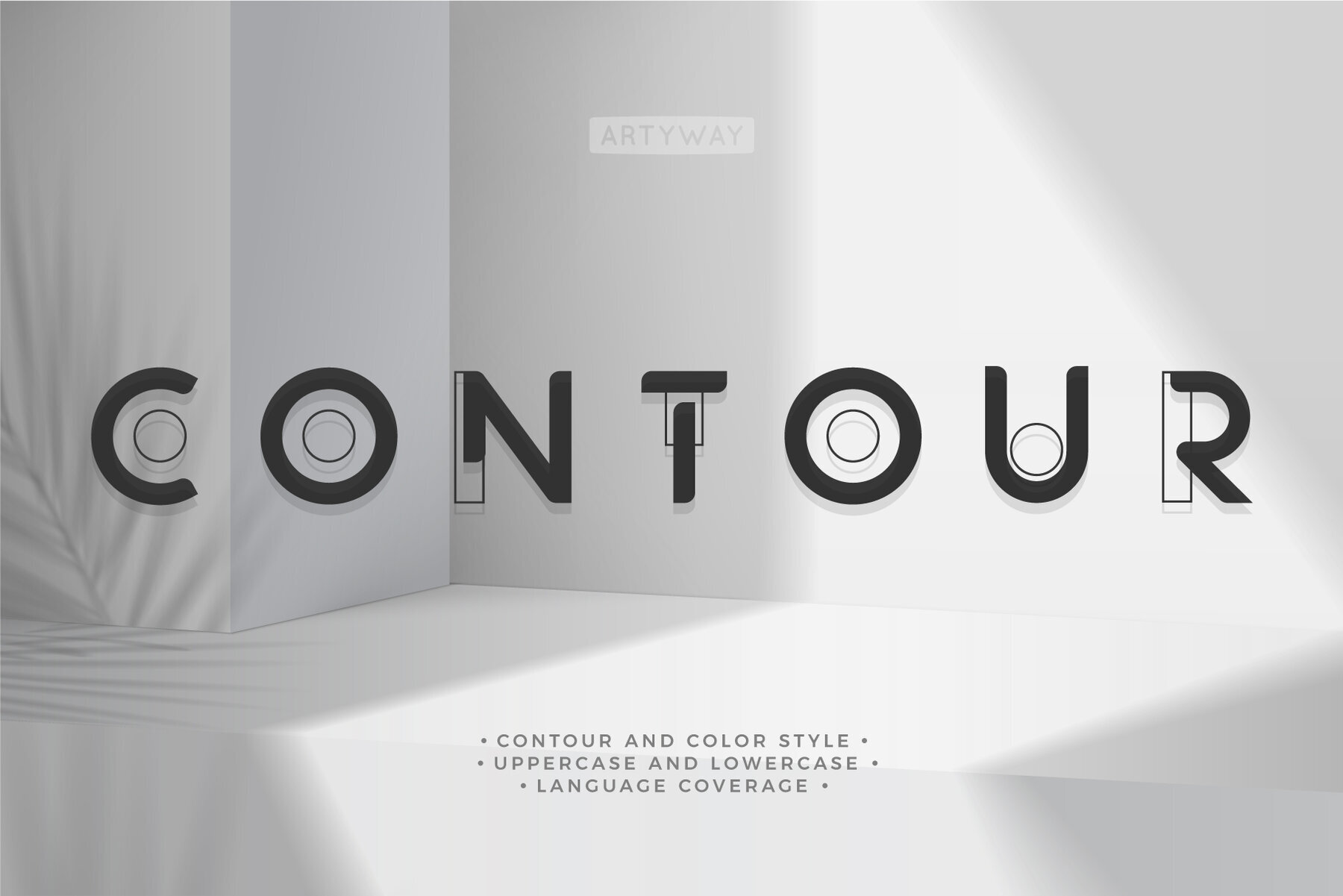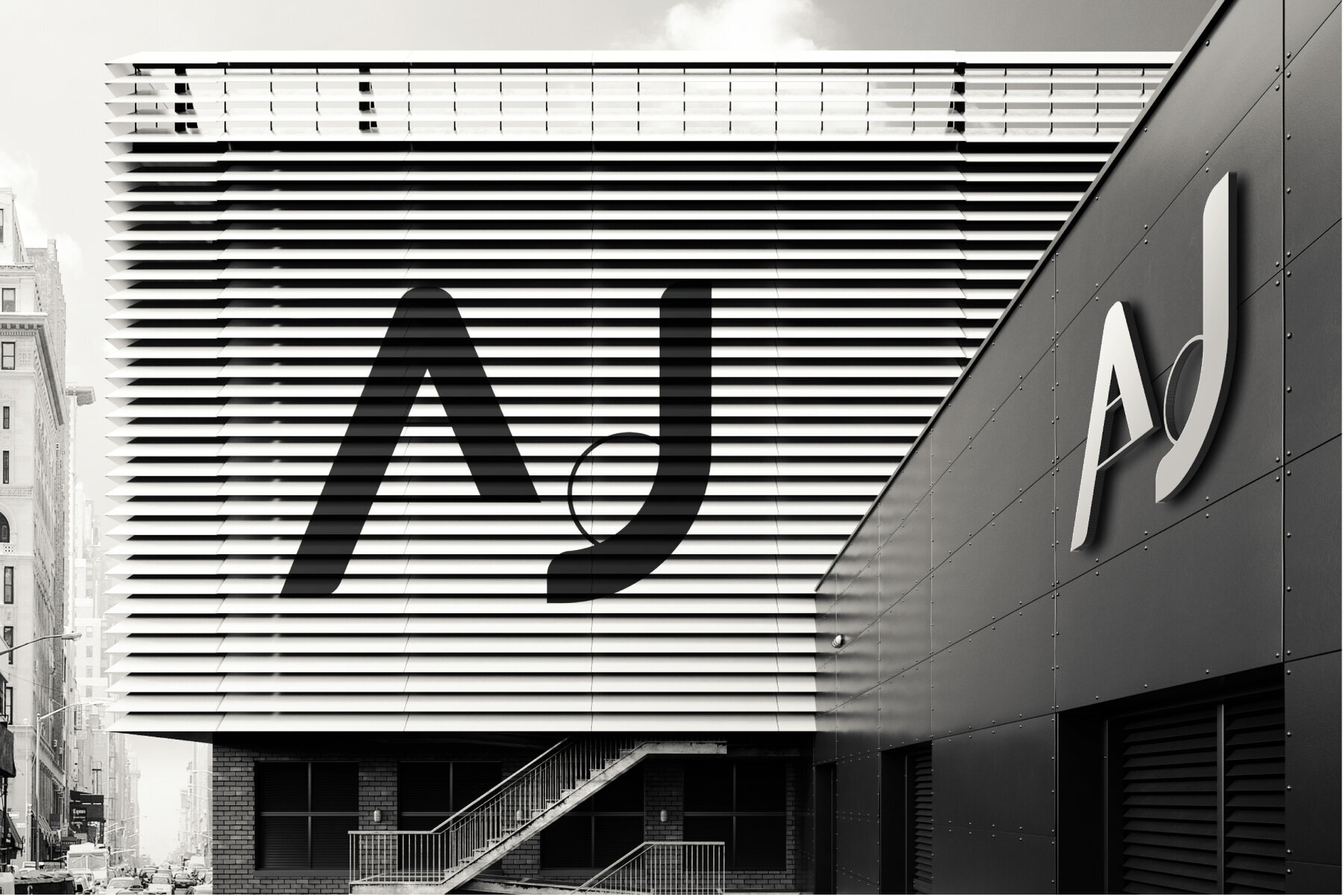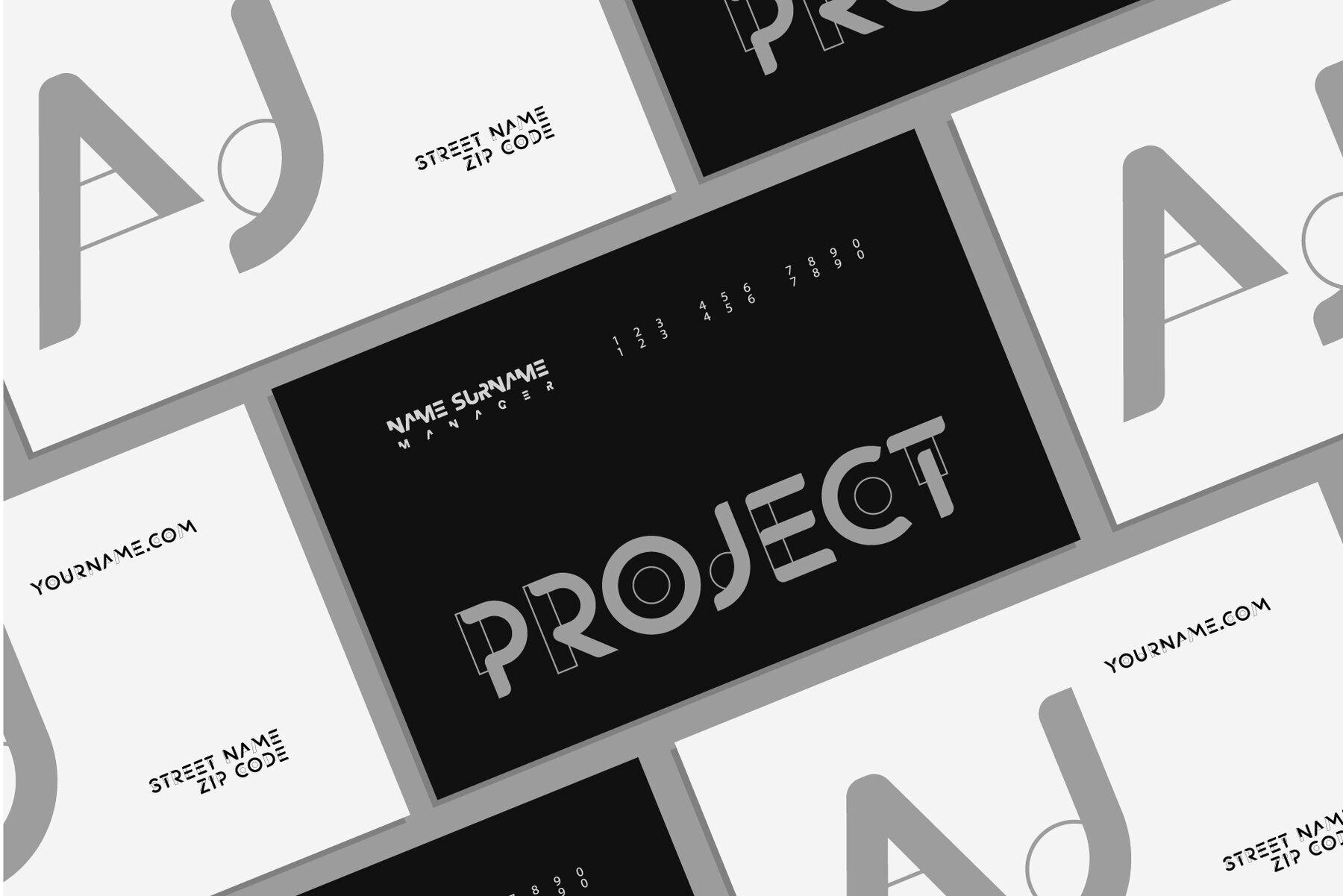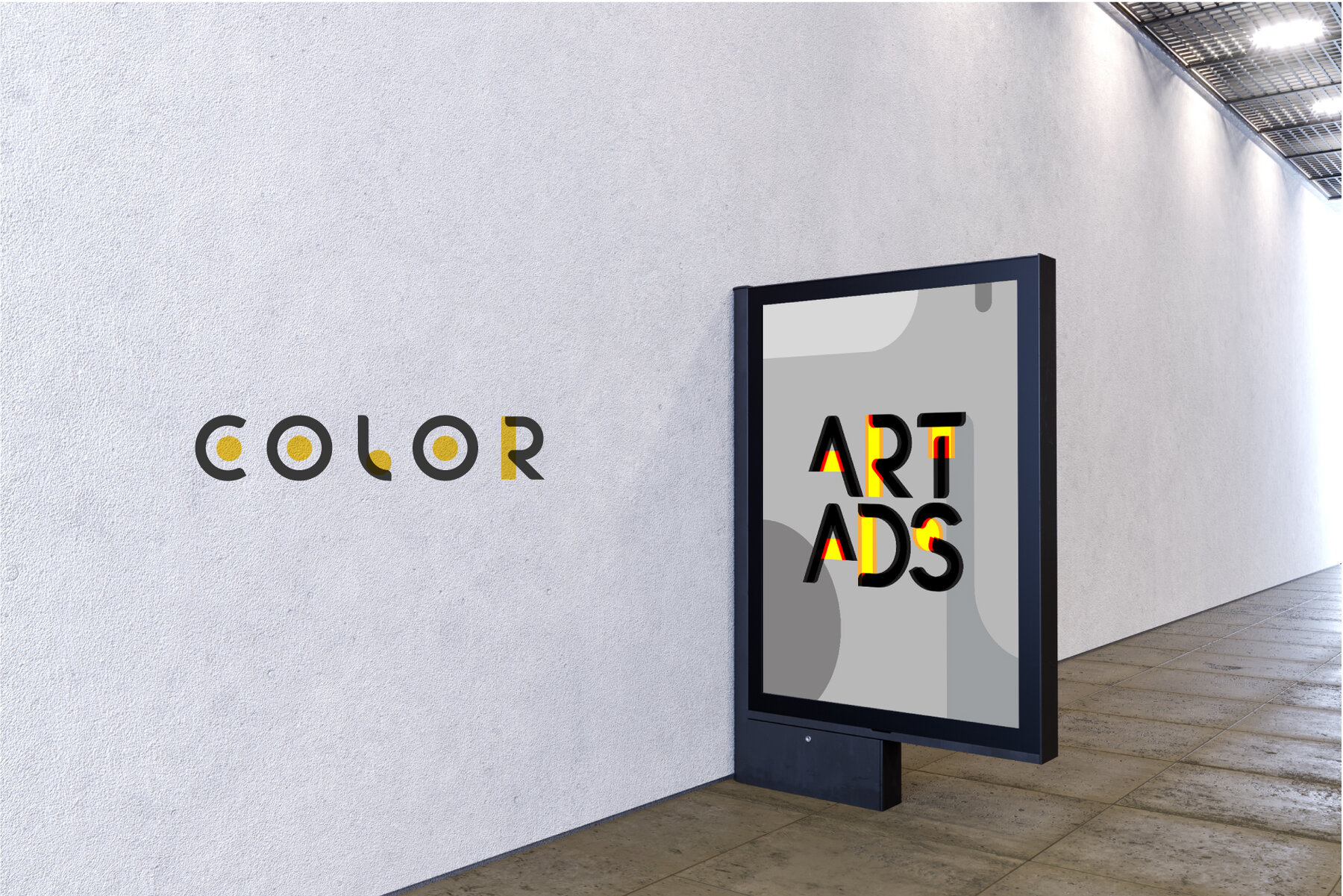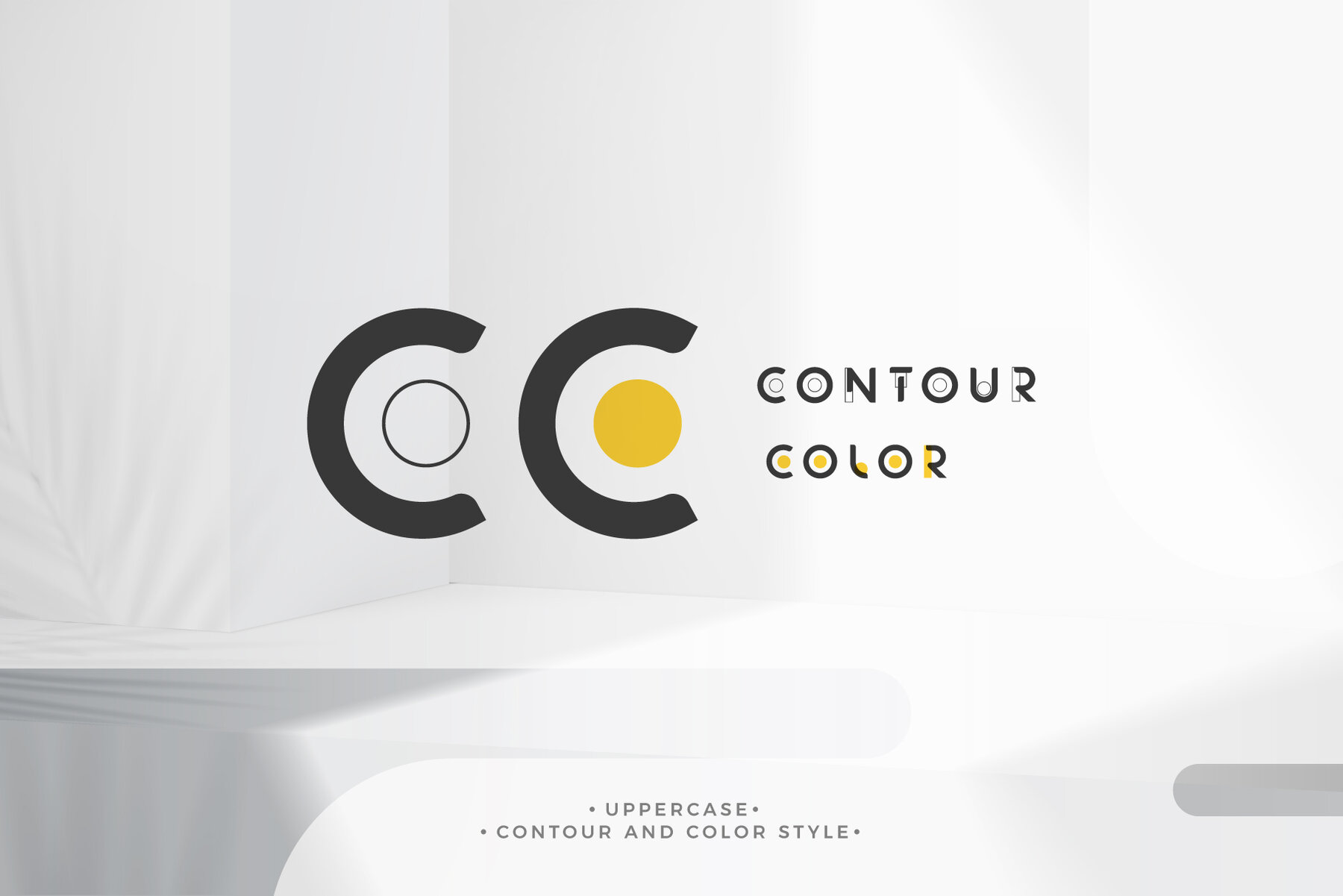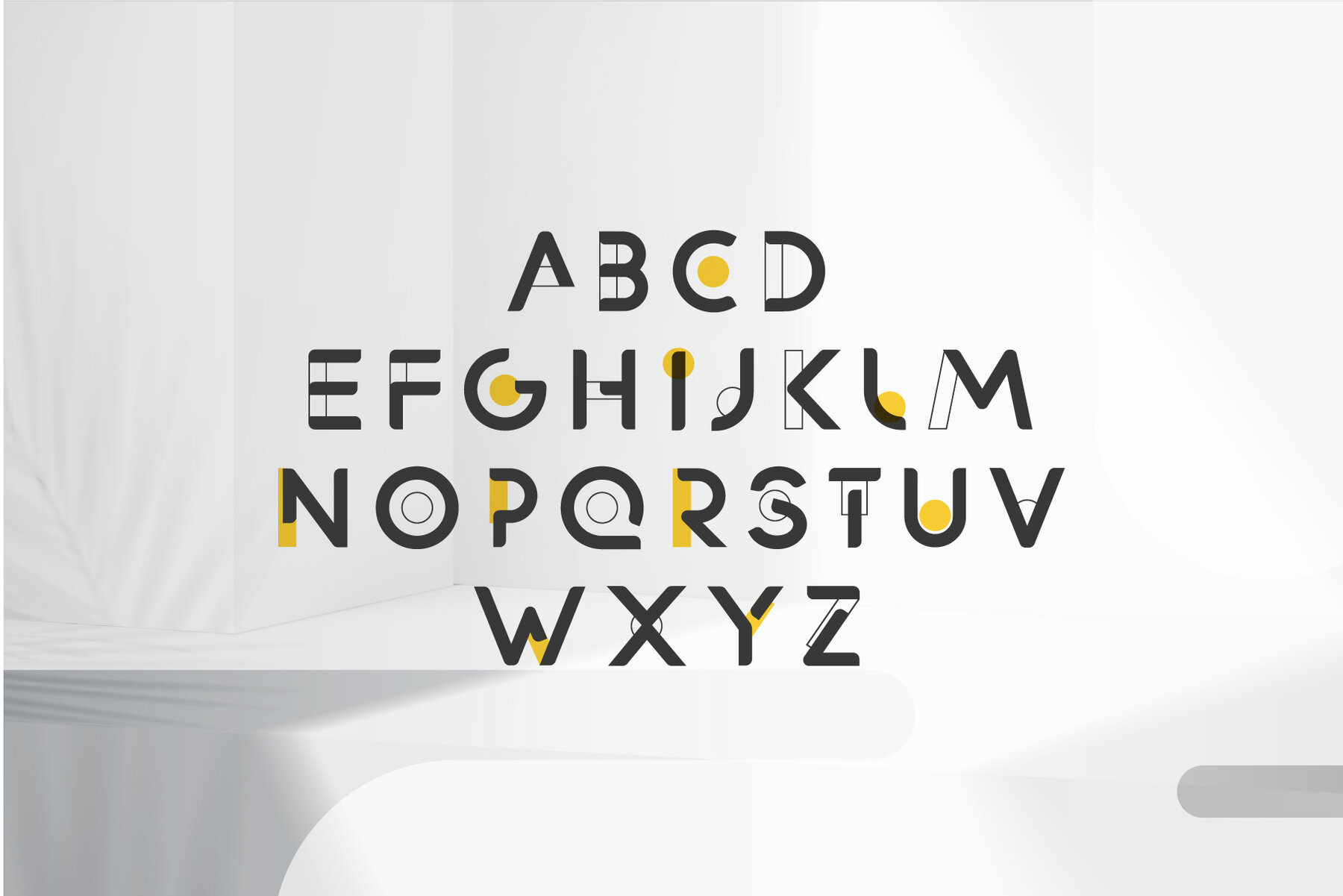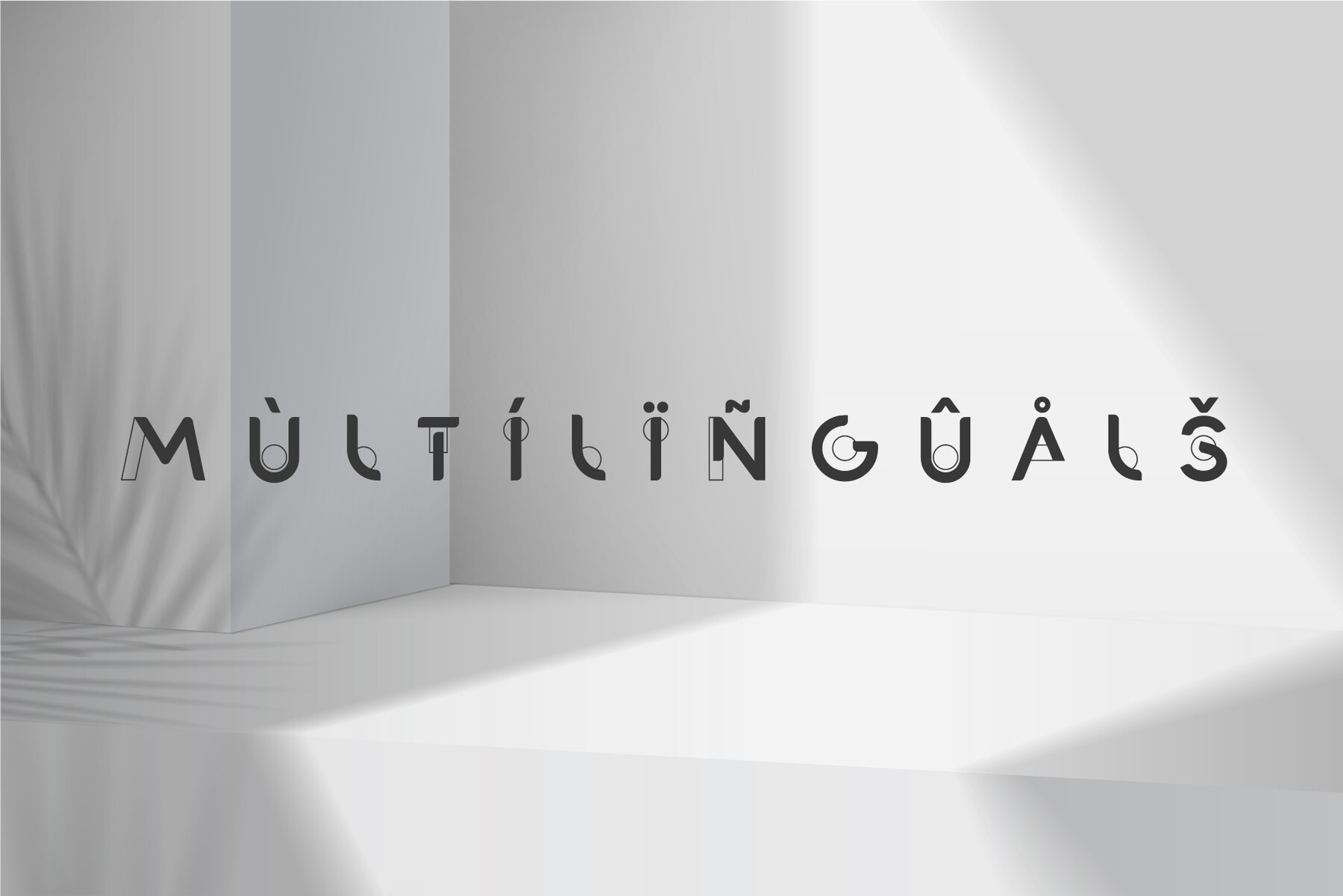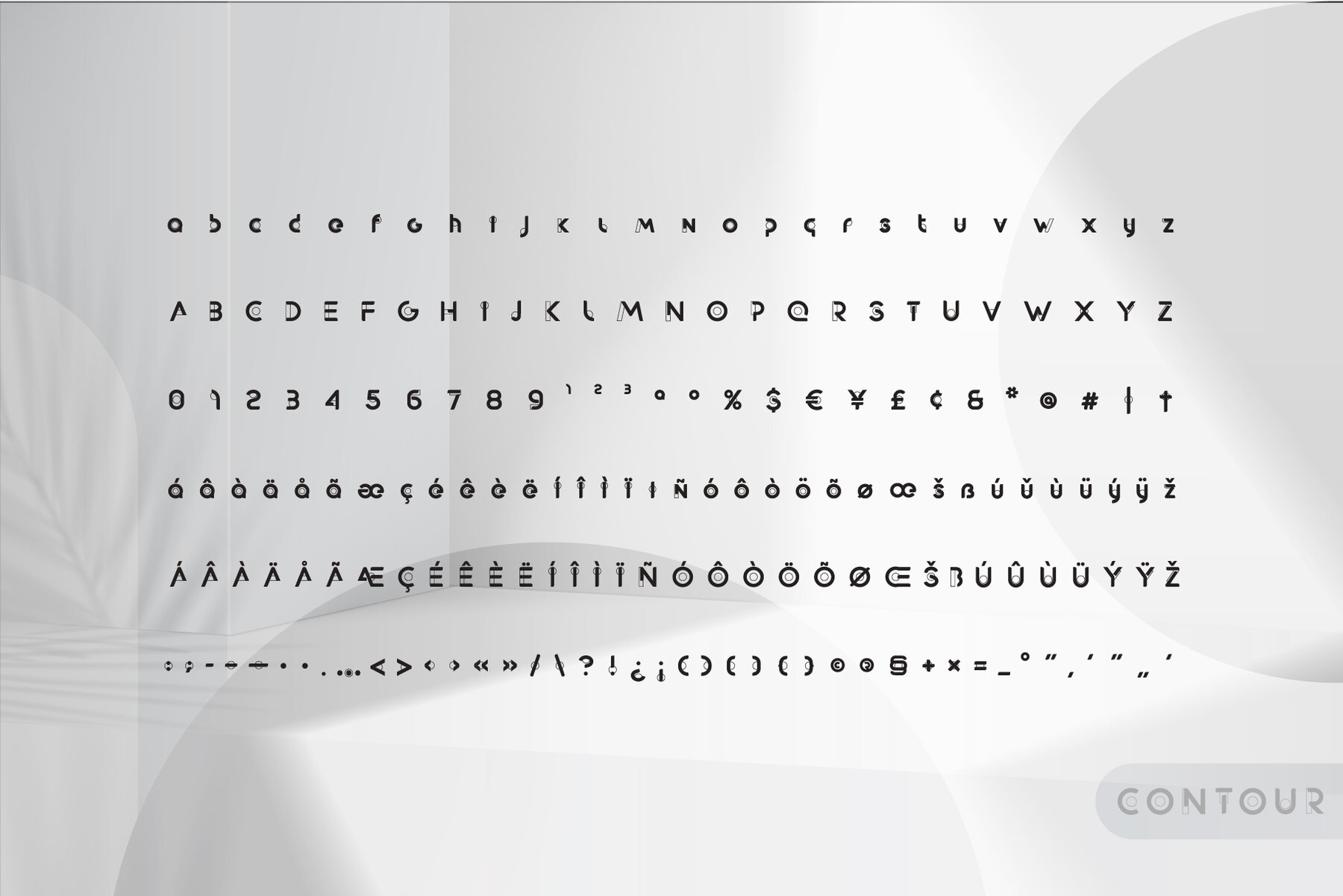
Contour Font
Contour Regular
Contour Color
Introducing the Contour font, a futuristic letter set inspired by architecture and future style. Perfect for a variety of projects including HUD, web design, movies, music, logos, and headlines. The Contour font features linear space and vibrant color spot shapes, adding a striking futuristic touch.